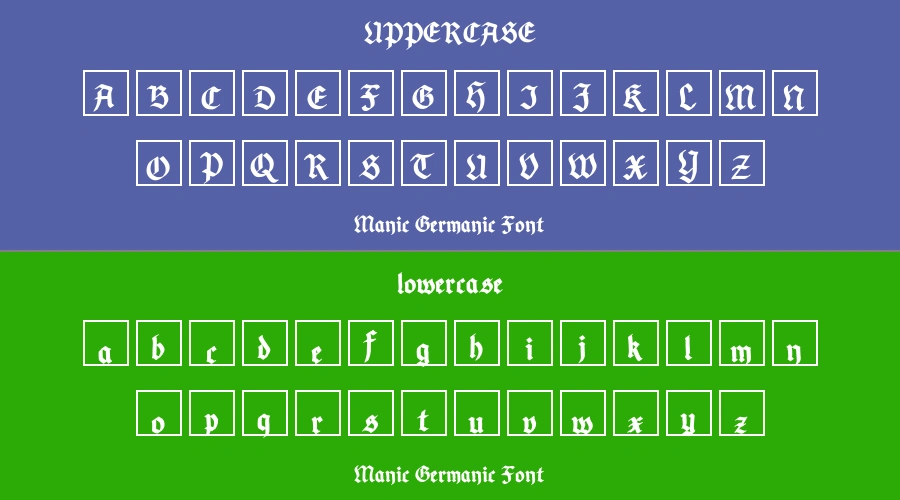
About Manic Germanic Font
Manic Germanic Font embodies typographic excellence through its masterful combination of rectangular counters and system consistency. Created for book design, this typeface delivers exceptional consistency and artistic value across all applications. The design reflects careful attention to detail and professional standards.
Advanced capabilities include distinctive harmonious shapes and versatile historical alternates, giving designers creative control. When used in white papers, Manic Germanic Font exhibits remarkable digital conversion. The harmonious balance between aperture size and professional recognition sets this typeface apart.